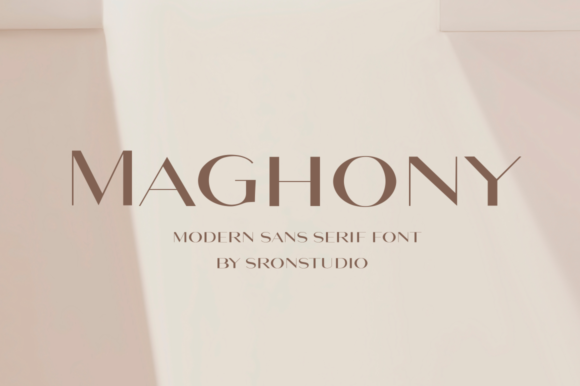
Behold Maghony, a groundbreaking sans serif font that exudes sophistication and grace, meticulously crafted by Sronstudio. As a modern and elegant typeface, Maghony stands tall among its peers, ready to elevate your creative projects to new heights.
With its clean lines and timeless appeal, Maghony possesses an innate ability to transform your words into works of art. Its meticulously designed curves and sharp edges create a visually stunning aesthetic that captivates the eyes, leaving a lasting impression on your audience.
Maghony is a versatile font that effortlessly adapts to a wide range of applications. Envision your modern resume adorned with this font, where your skills and achievements shine brighter than ever before. Its crisp and legible characters ensure that your words are easily readable, conveying your professionalism and attention to detail.
The creative possibilities with Maghony are endless. Unleash your imagination and craft eye-catching logos that command attention. Design elegant brochures, flyers, and invitations that leave a lasting impression. Create social media posts that pop off the screen, captivating your audience with their stunning visuals.
Join the ranks of creative professionals who have discovered the transformative power of Maghony. Embrace this font as your secret weapon to elevate your designs, leaving a lasting impression on your audience. Maghony is not just a font; it's a statement of style, a reflection of your discerning taste and an investment in your creative future.